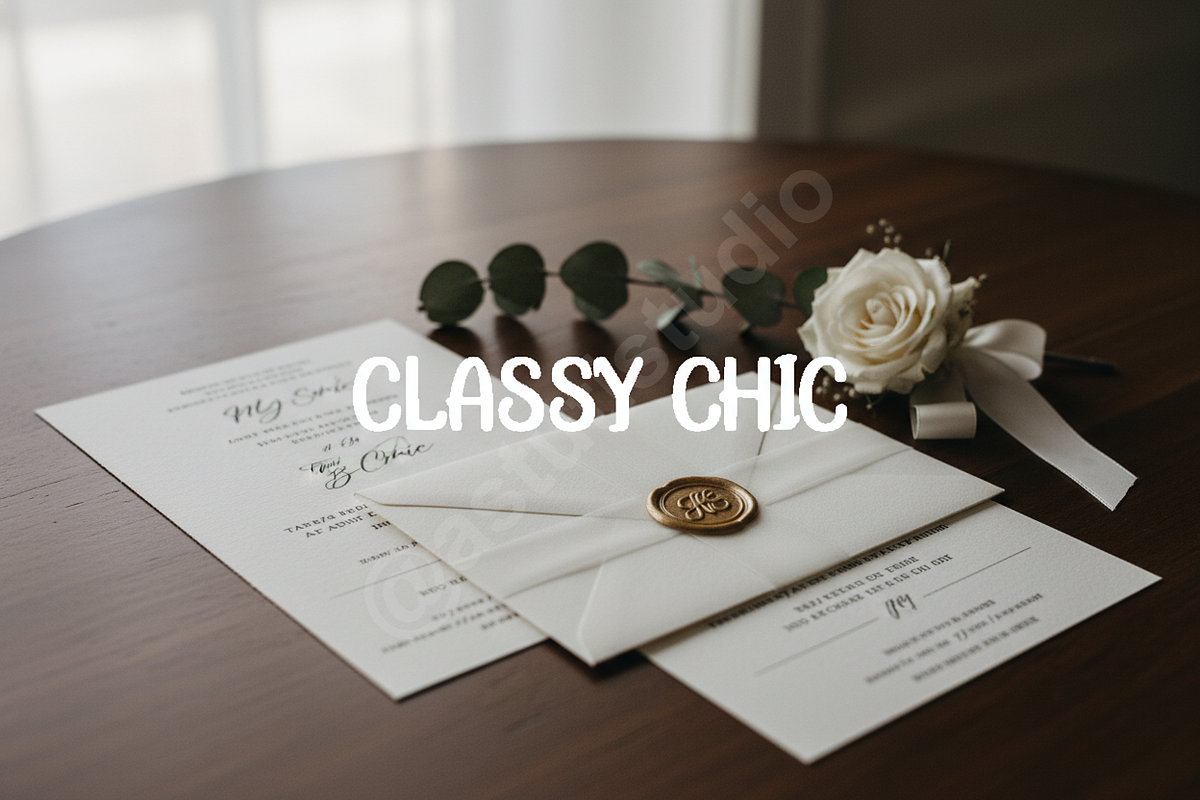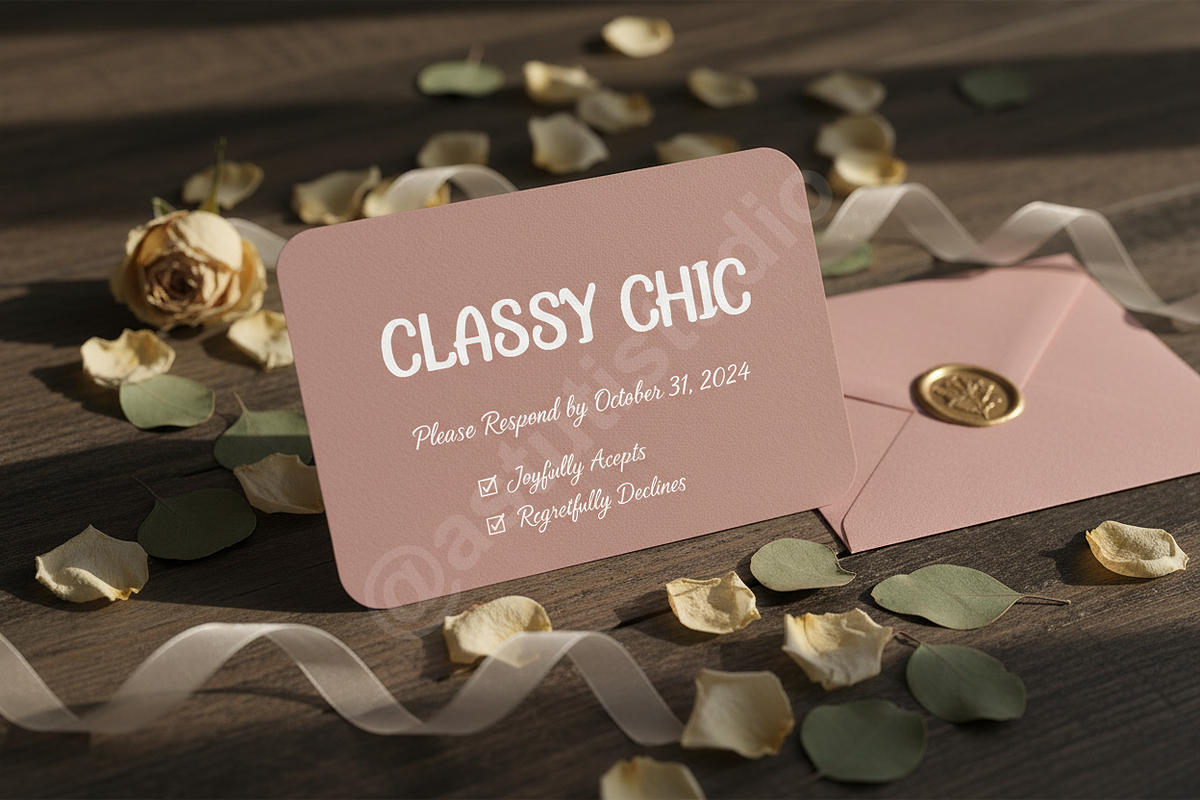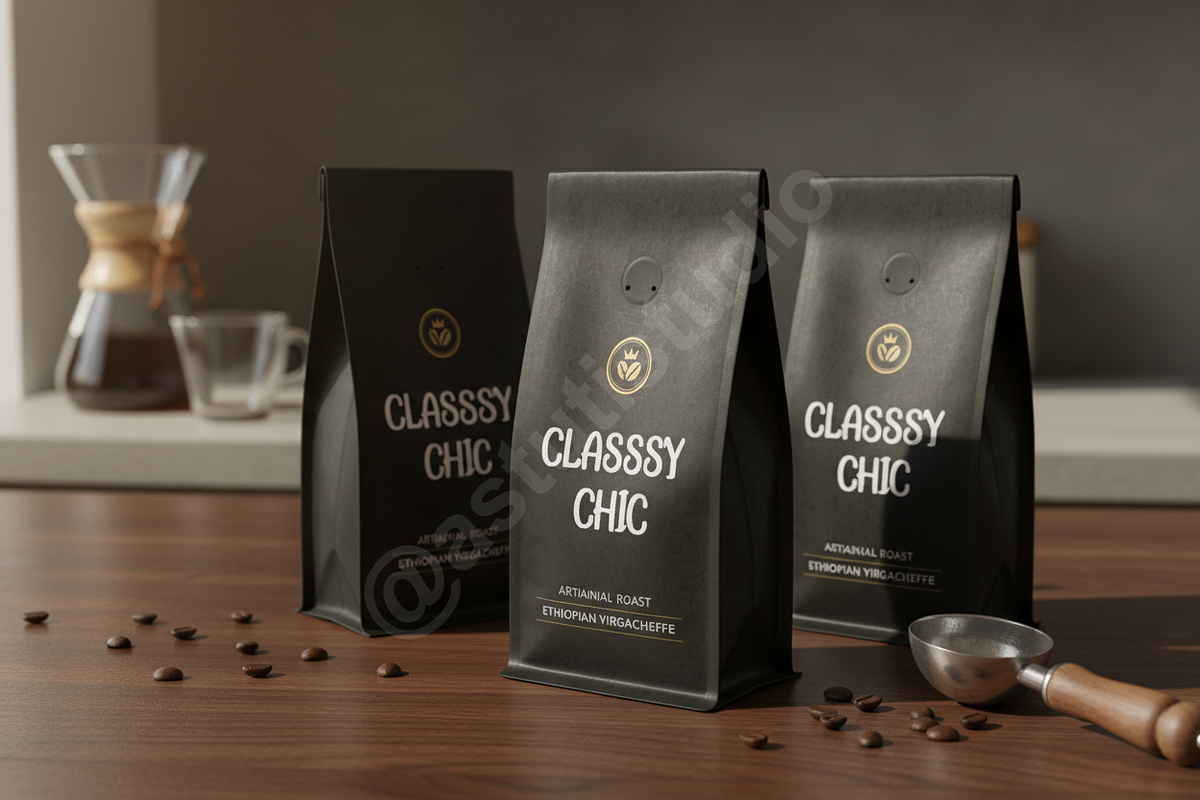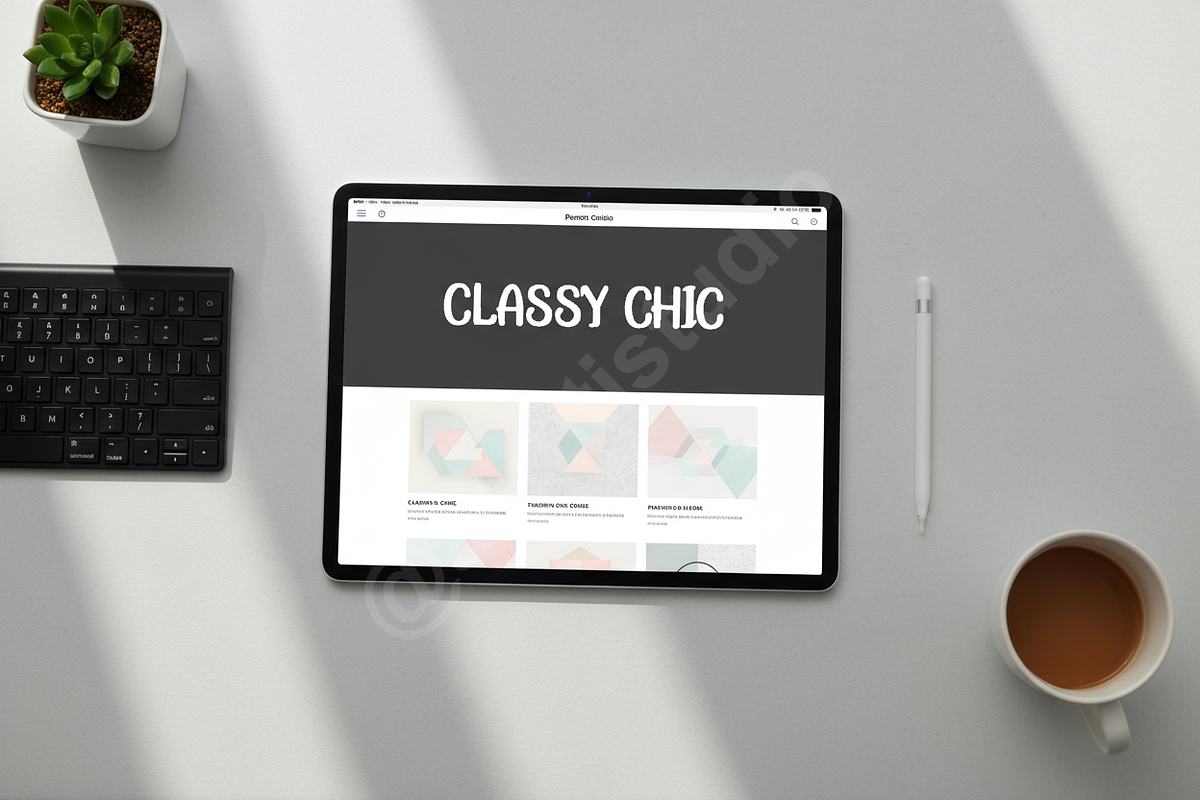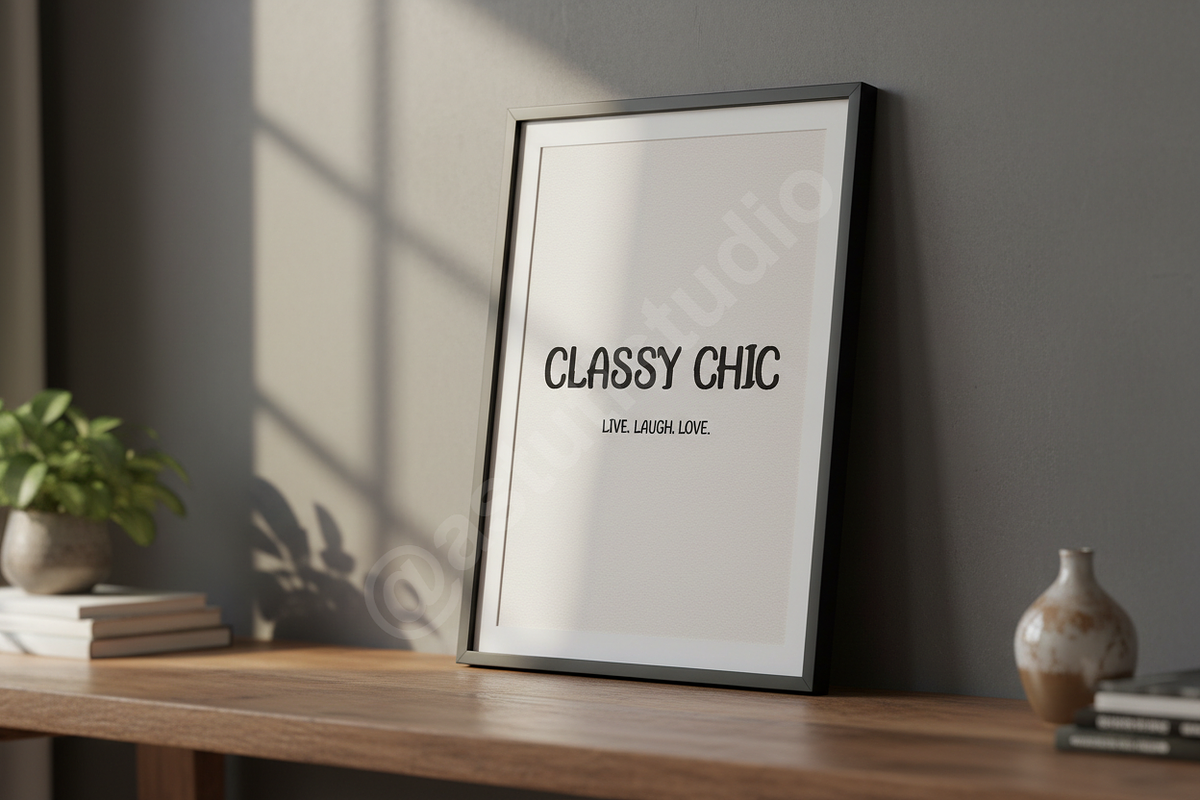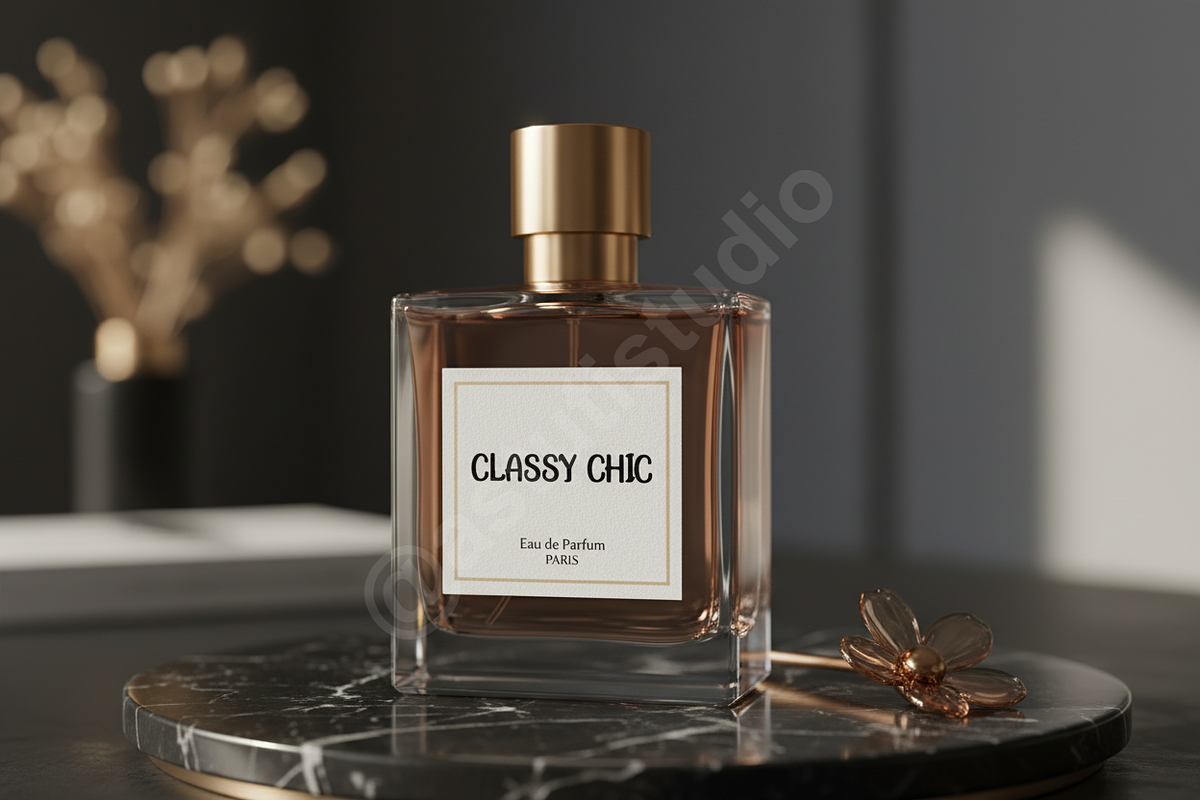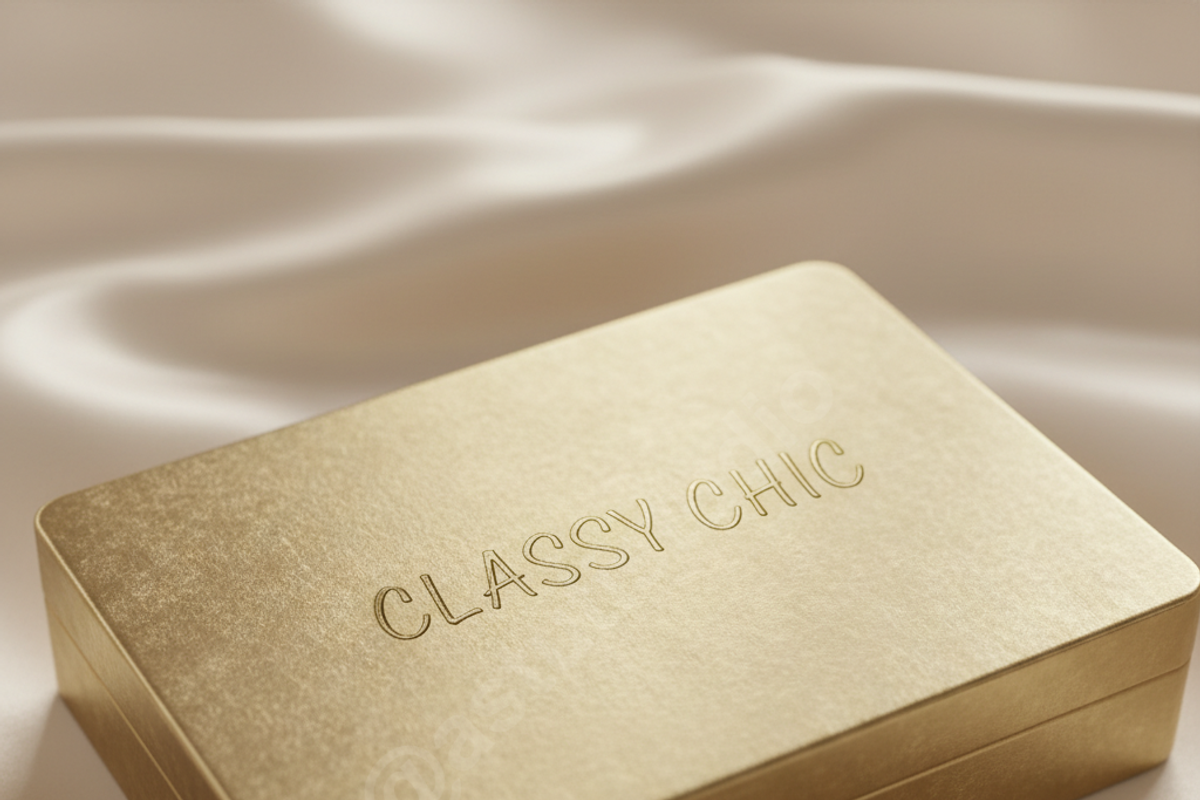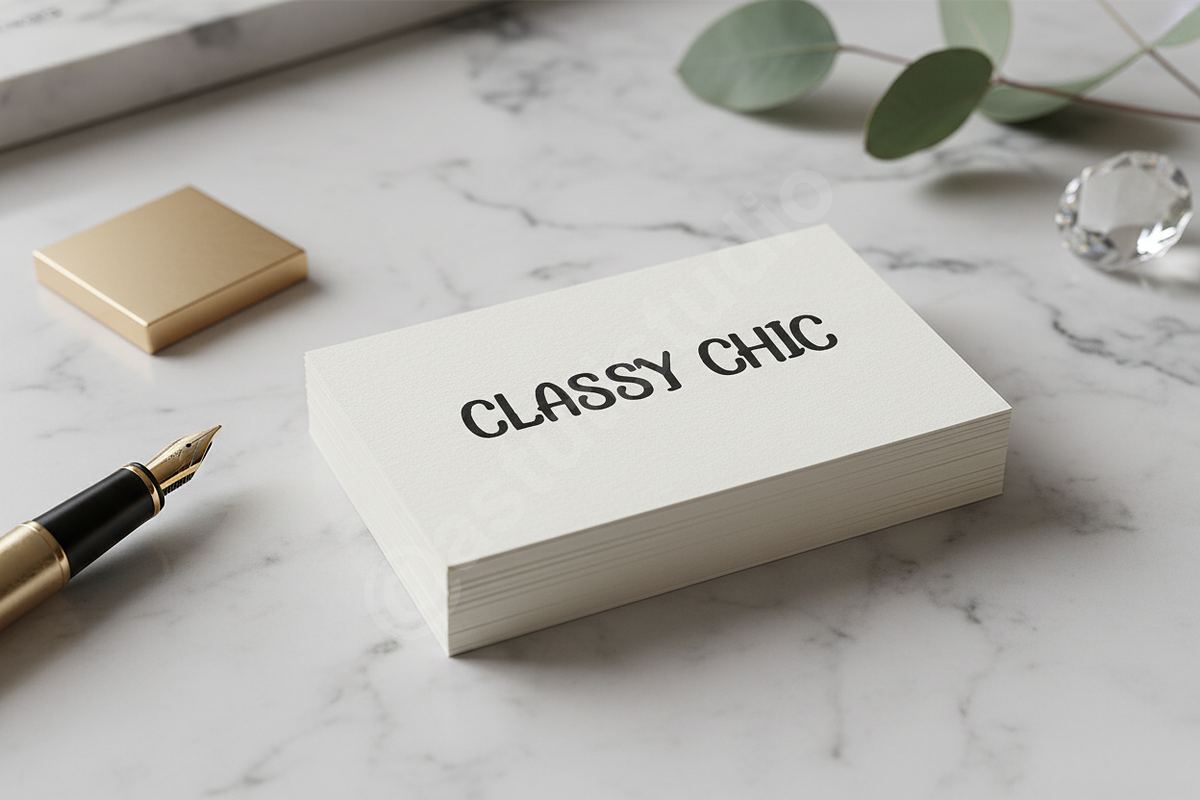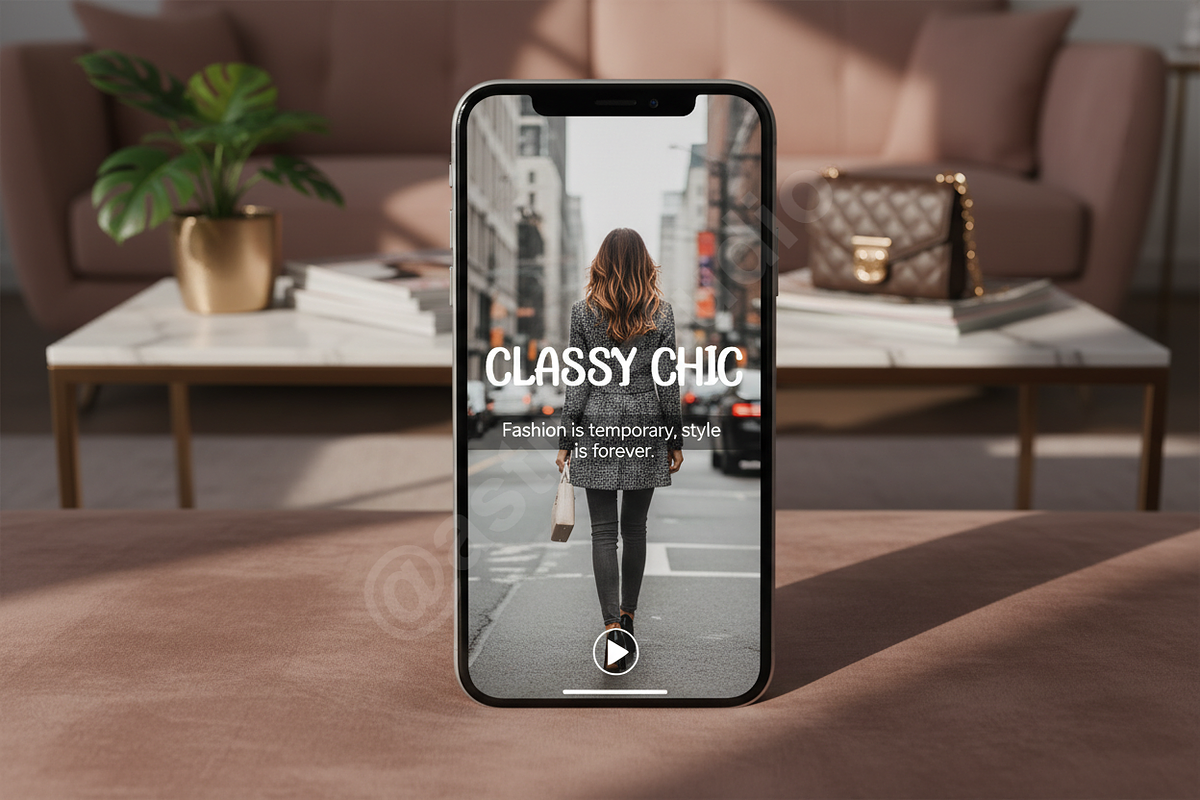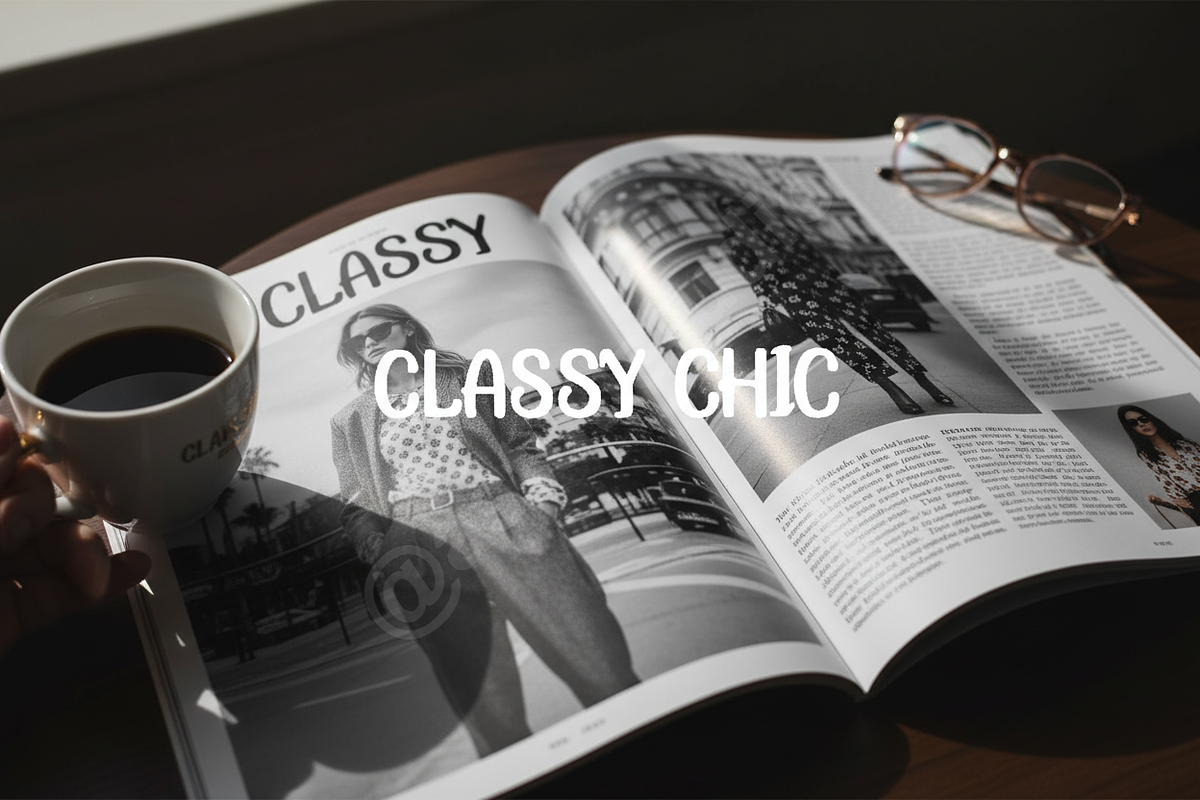
Neba | Elegant Luxury Serif Typeface
Neba is a sophisticated serif typeface designed for modern elegance and timeless appeal. Crafted with deliberate high contrast and fluid, sophisticated curves, it provides a premium aesthetic for designers who value clean, luxury-oriented typography. Neba is the ideal choice for high-end branding, editorial layouts, and high-impact social media content.
- Elegant high-contrast strokes
- Unique ligatures for custom flourishes
- Sophisticated alternates for creative versatility
- Full multilingual support
- Clean, legible proportions for both print and digital